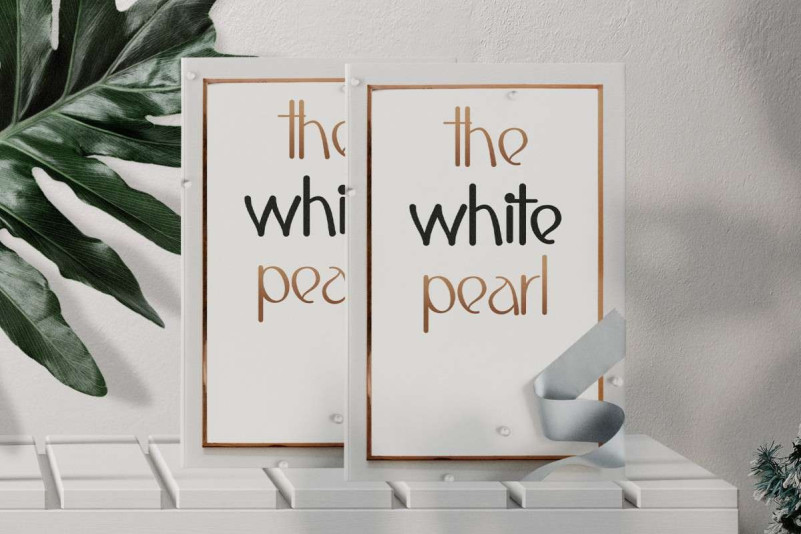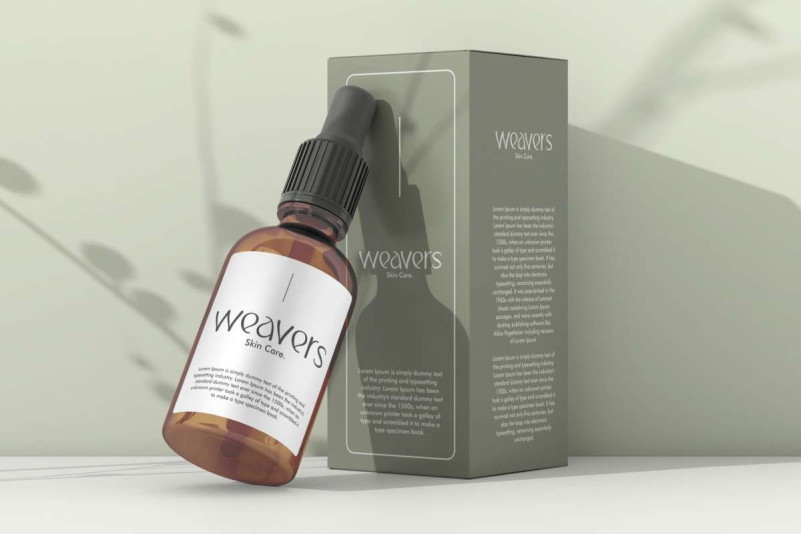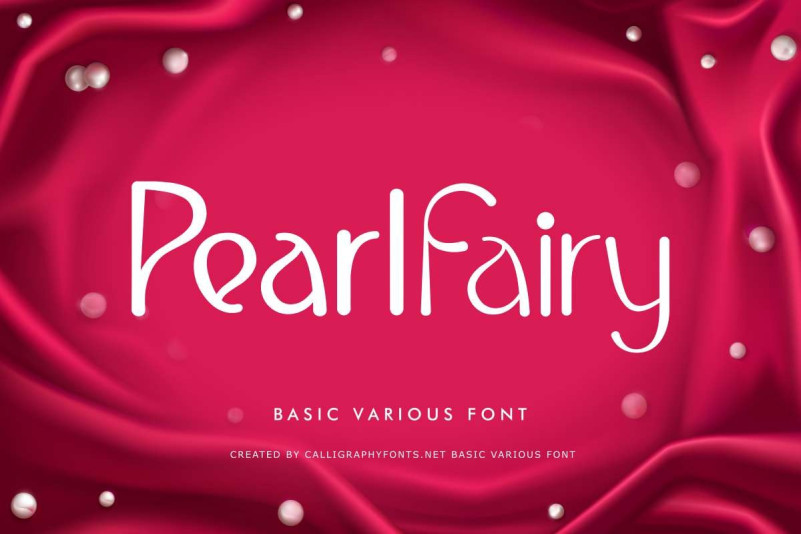
Pearl Fairy Font
Pearl Fairy Display Font is a special display font with a unique aesthetic look that is made with thick and thin brush writing styles designed by CalligraphyFonts. It can enhance various creative projects, such as brochure, label, packaging design, screen print, stationery, sticker, and any project that requires a touch of classy art.
Pearl Fairy Font consists of two types of styles, Regular and Bold which will be perfect for any industry, such as beauty product, boutique, clothing brand, handicrafts, perfume, publishing, restaurant, etc. This font takes the idea of basic type combined with handwriting making it beautiful in form and legibility, making it a great choice for any creation.